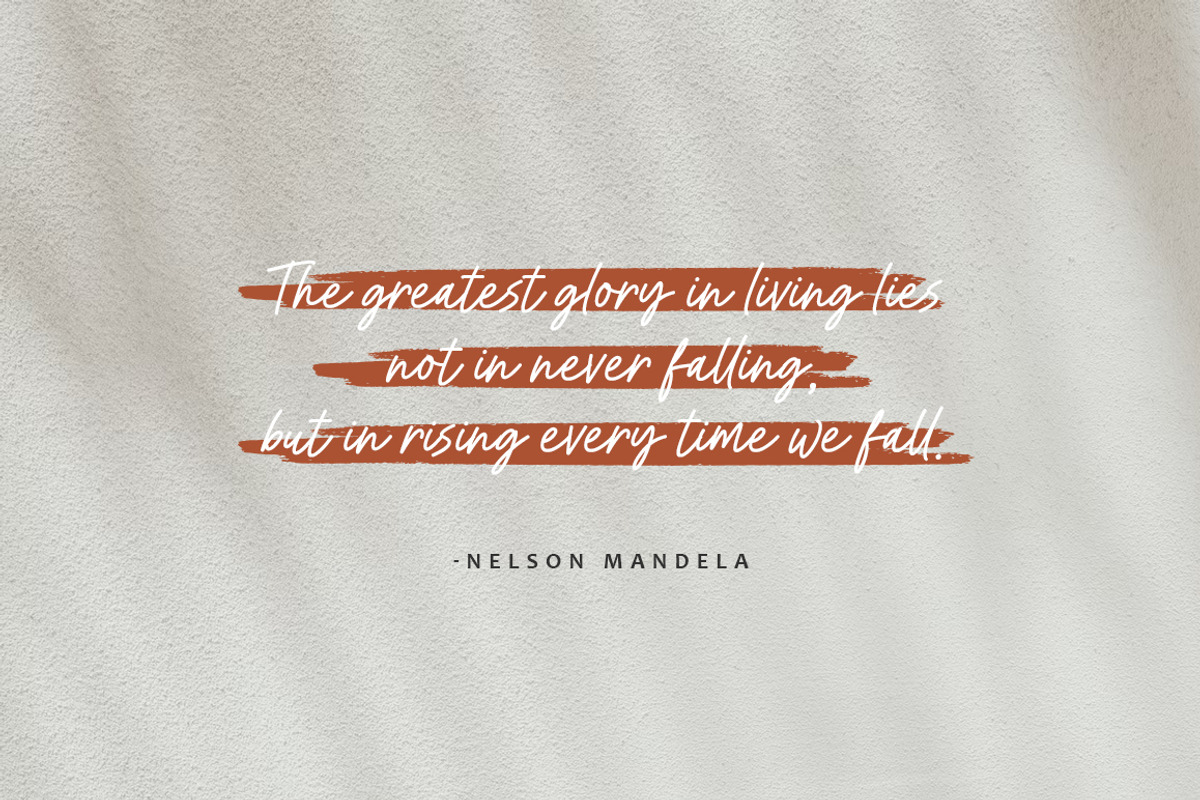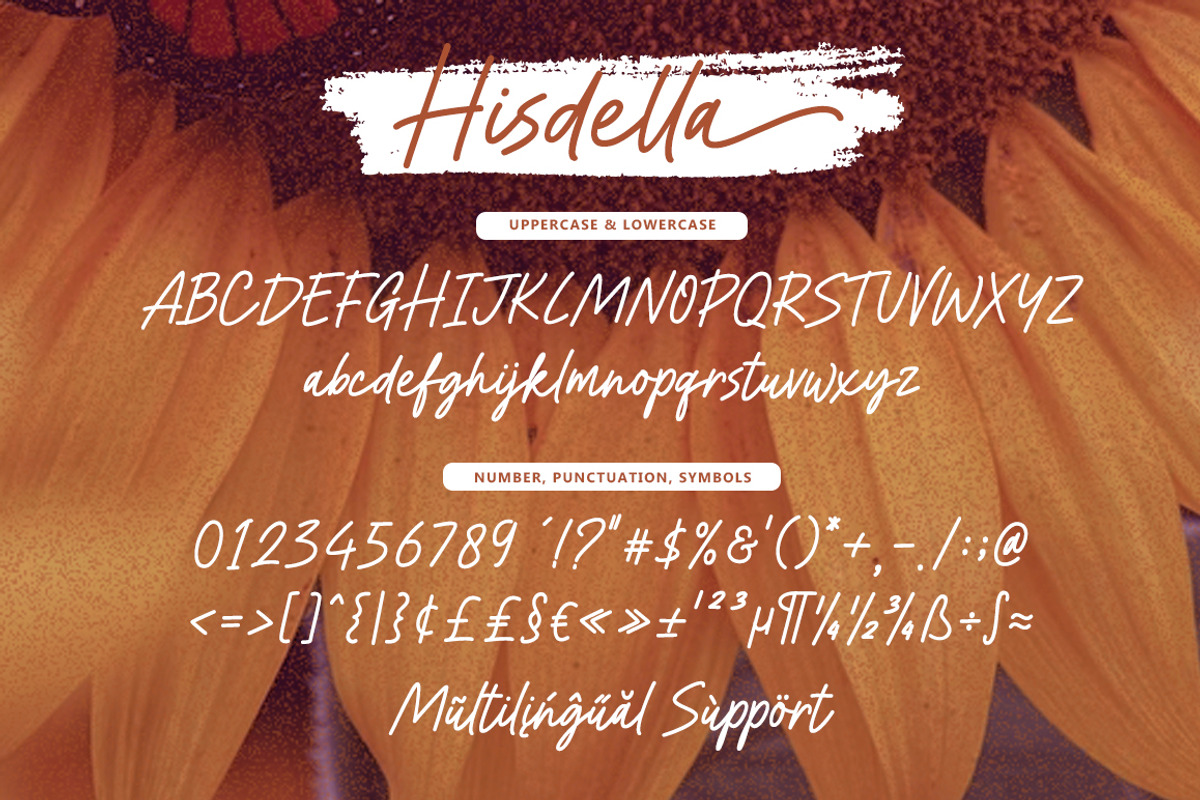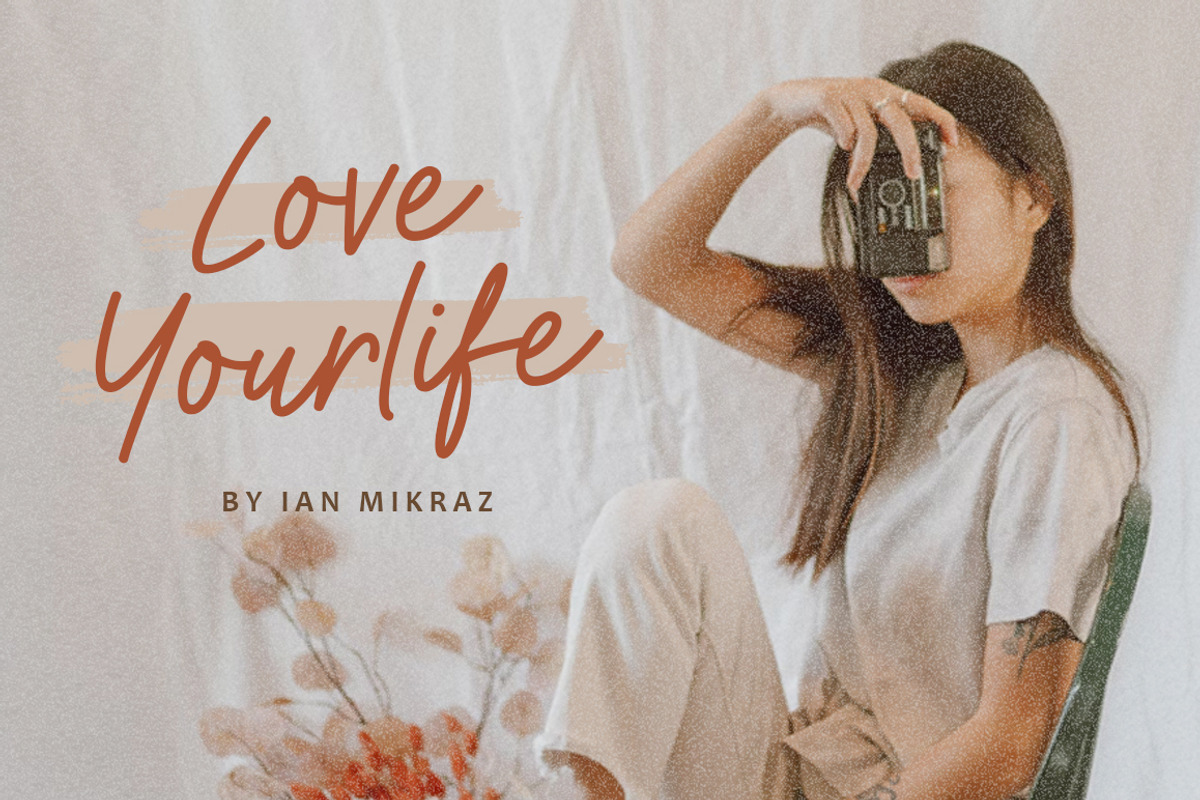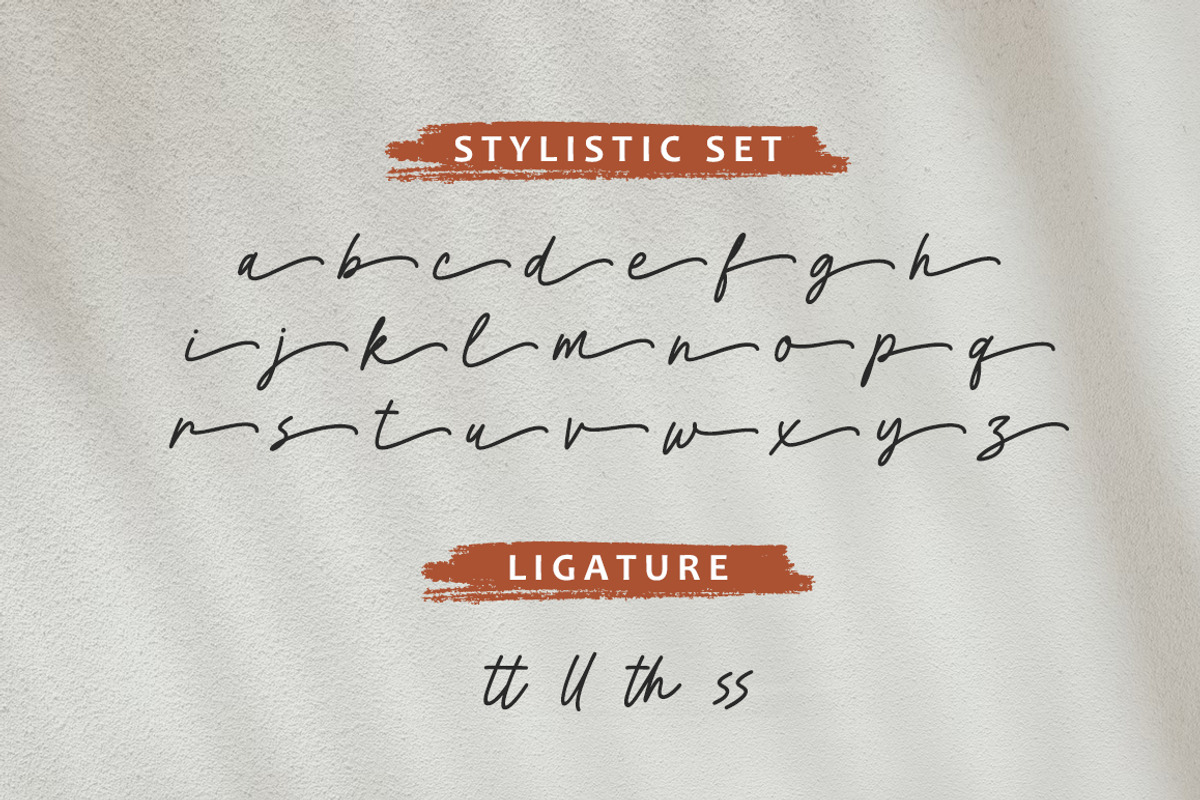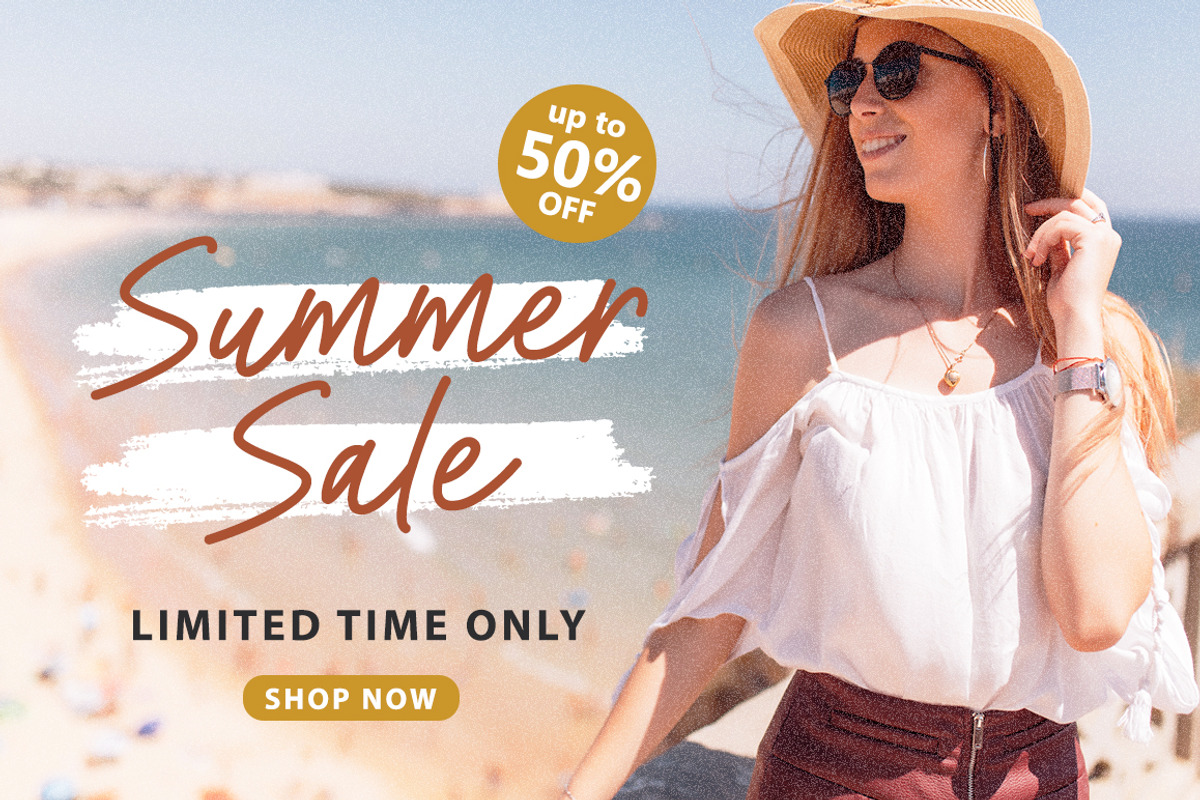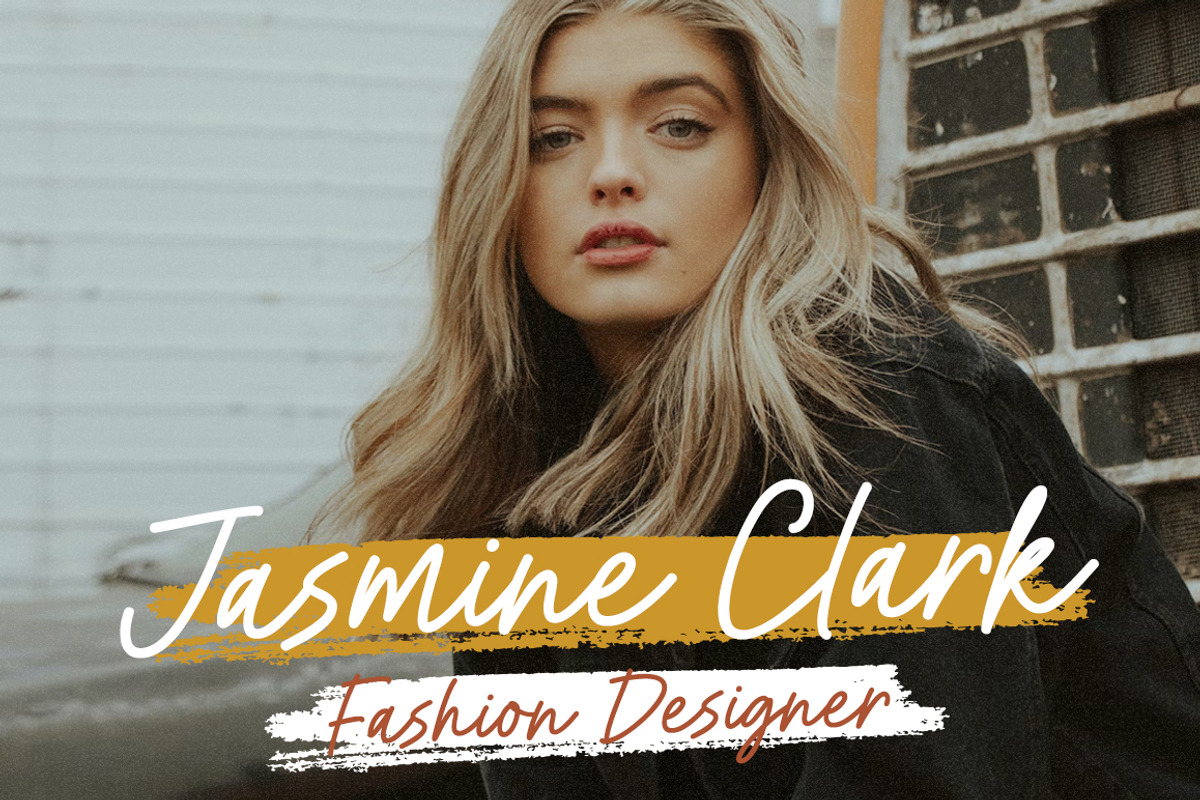
Hisdella - A Handwritten Font
Introducing Hisdella, a handwritten font that breathes life into your words, turning them into a visual poetry of strokes and curves. Each character in Hisdella is a testament to the art of penmanship, capturing the essence of genuine handwriting in a digital realm.
Whether you're creating personal messages, invitations, or adding a touch of authenticity to your designs, Hisdella adds a warm and human touch.
Hisdella is not just a font; it's a personal expression. Crafted with care, it retains the natural flow and irregularities of real handwriting, creating a unique charm that resonates with authenticity.
Perfect for projects that require a personal and approachable feel, Hisdella invites you to connect with your audience on a deeper level.
Let your words dance gracefully with Hisdella, where each letter is a brushstroke of personality. Immerse yourself in the artistry of handwriting, and let Hisdella be the storyteller for your designs.
- Standart ligatures